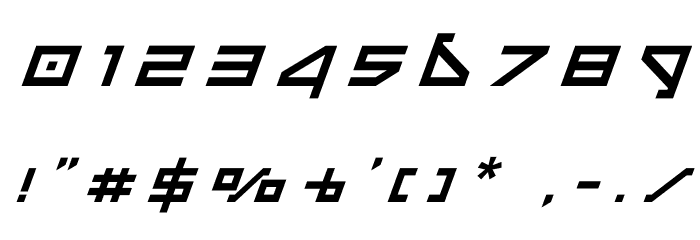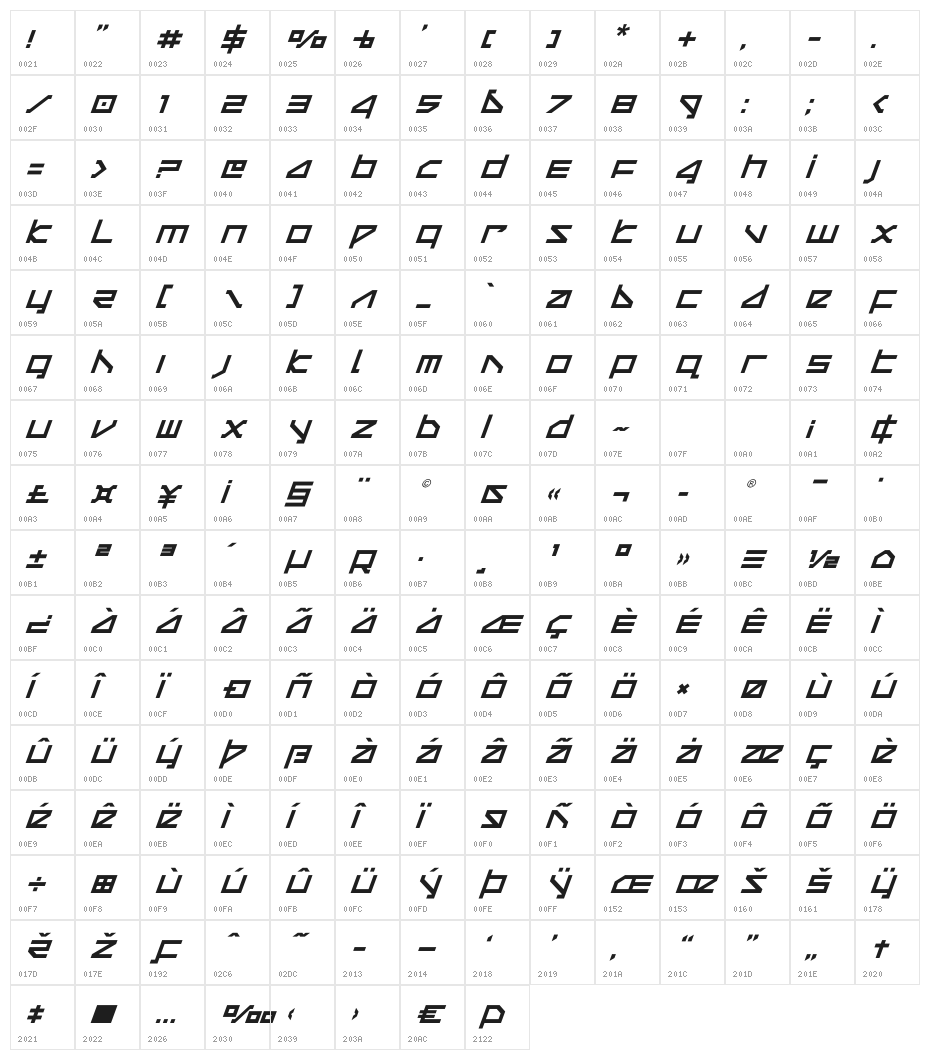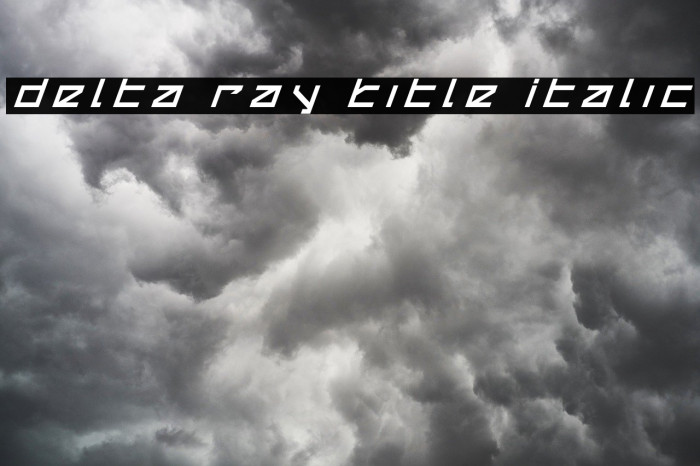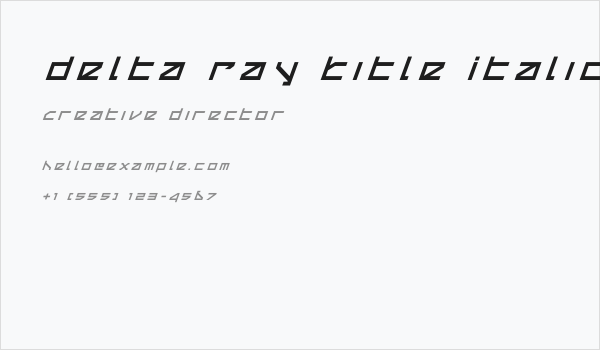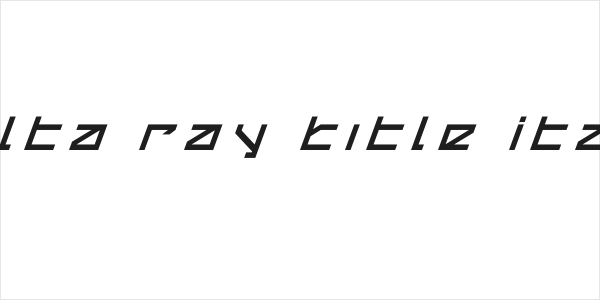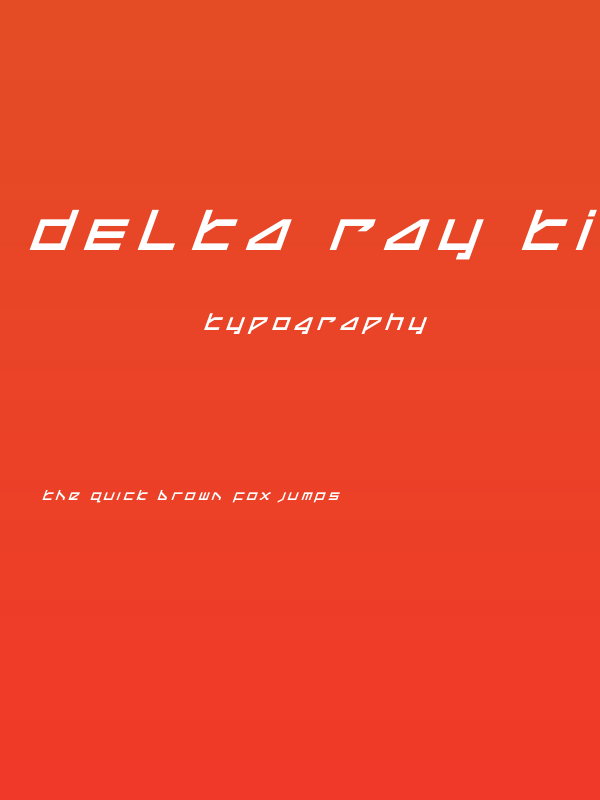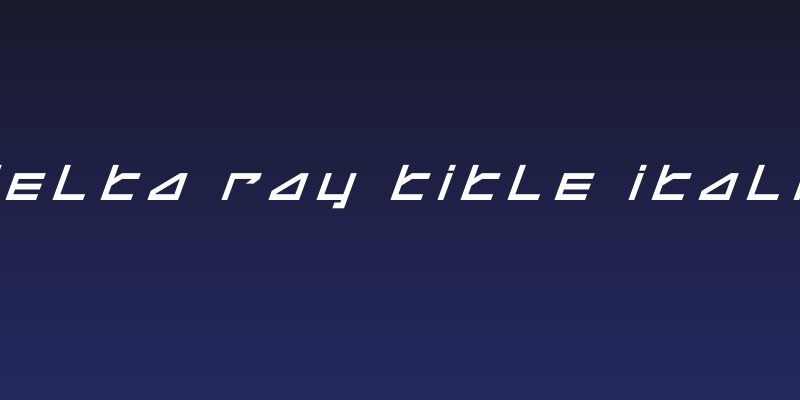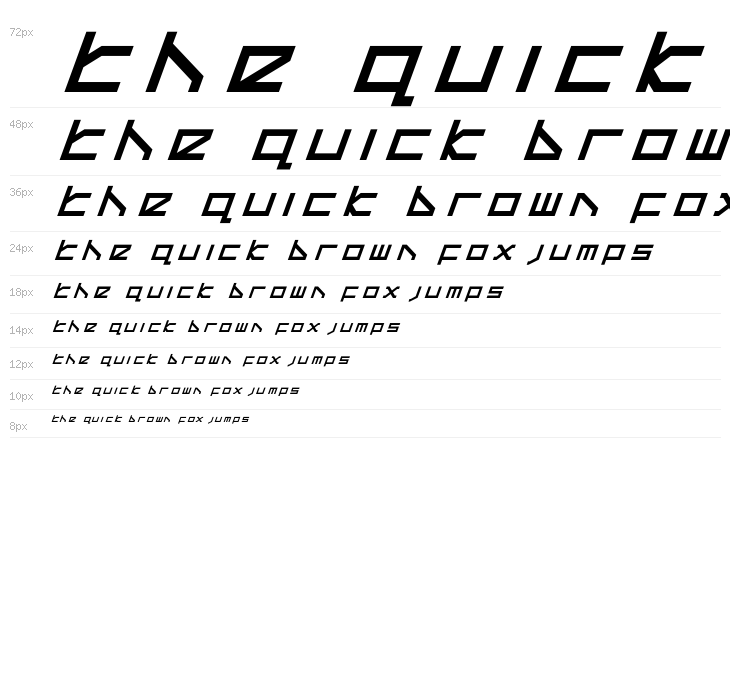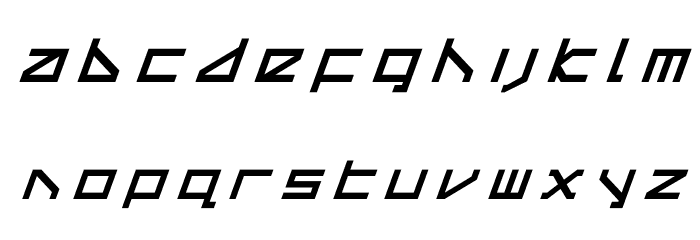
Delta Ray Title Italic Font
Delta Ray Title Italic Description
This font features a futuristic and angular design, characterized by sharp edges and a dynamic slant that gives it a sense of motion and energy. The letters are distinct with a geometric style, making them stand out with a unique flair. The uppercase and lowercase letters maintain a consistent style, with the lowercase slightly smaller in size but equally bold in presence. Numbers and special characters follow the same angular and italicized design, ensuring uniformity across all characters. This font is ideal for projects that require a modern, tech-inspired aesthetic.